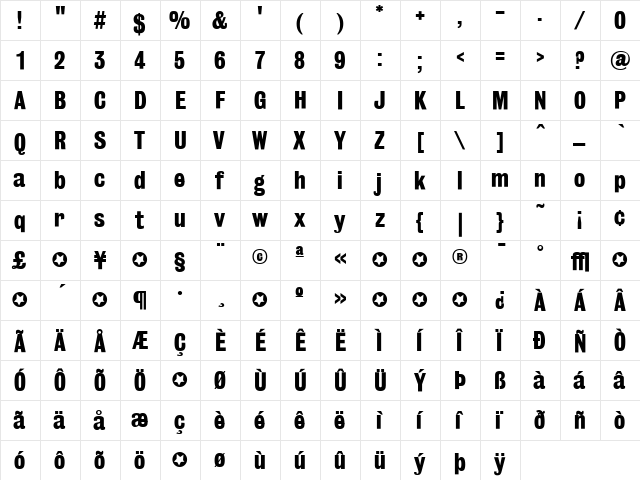
BureauGrotesque-ThreeSeven Regular
Design Context for BureauGrotesque-ThreeSeven Typeface
BureauGrotesque-ThreeSeven offers clean, dependable letterforms without strong stylistic allegiance, making it a practical choice for designers who need flexibility.